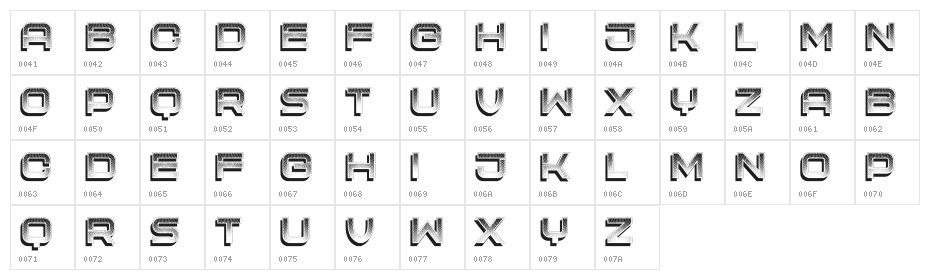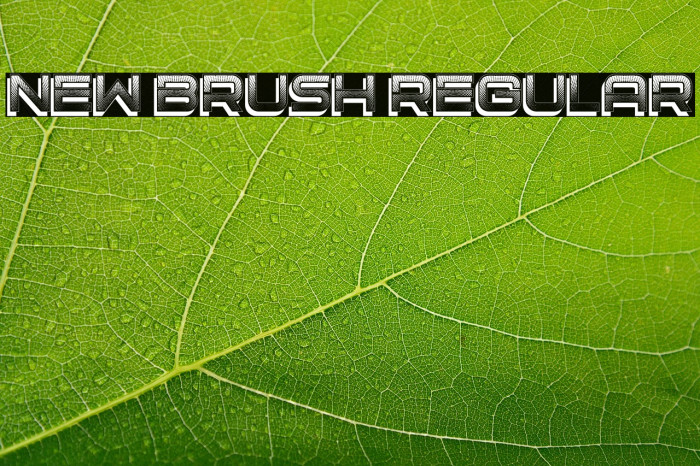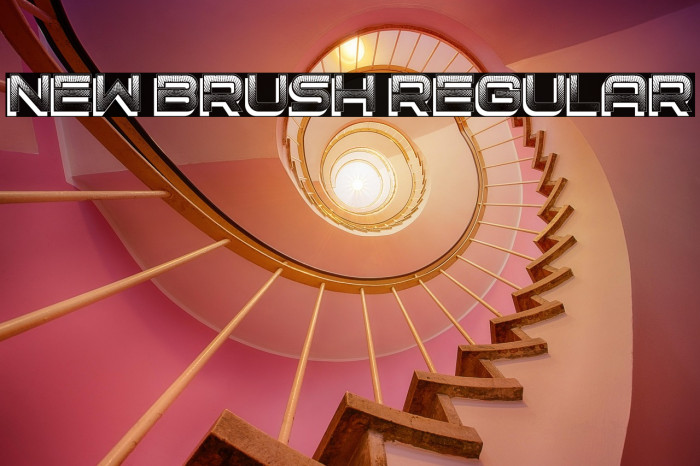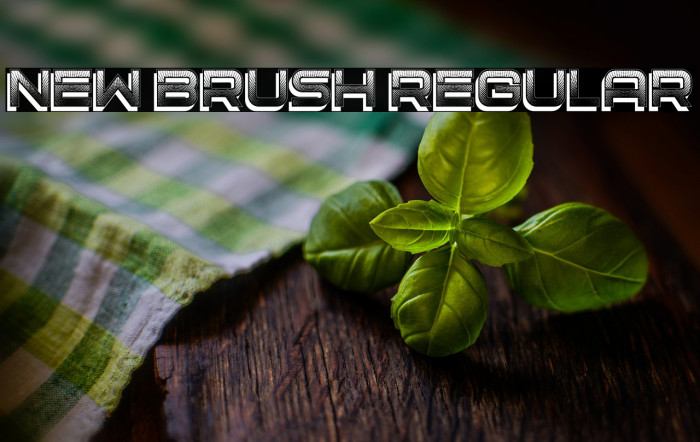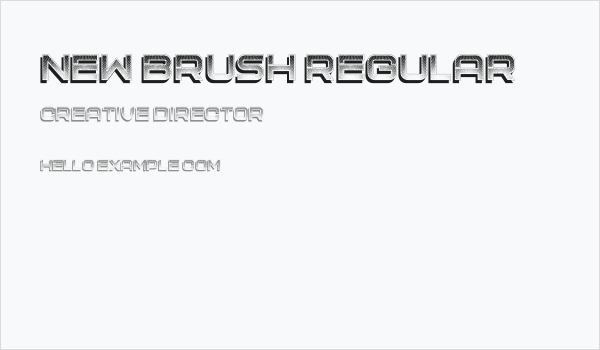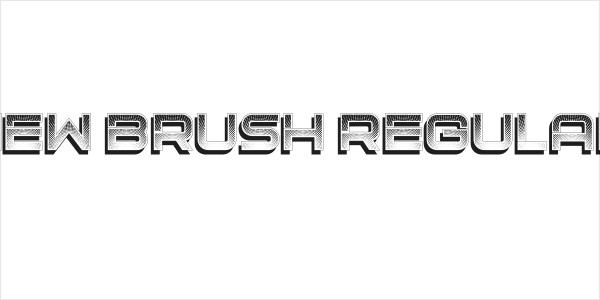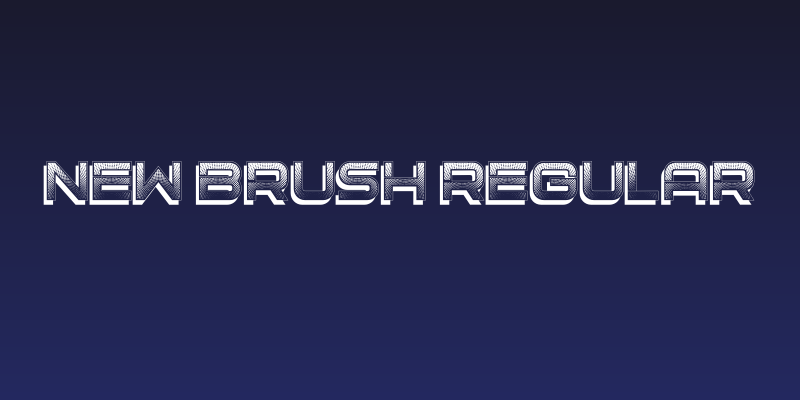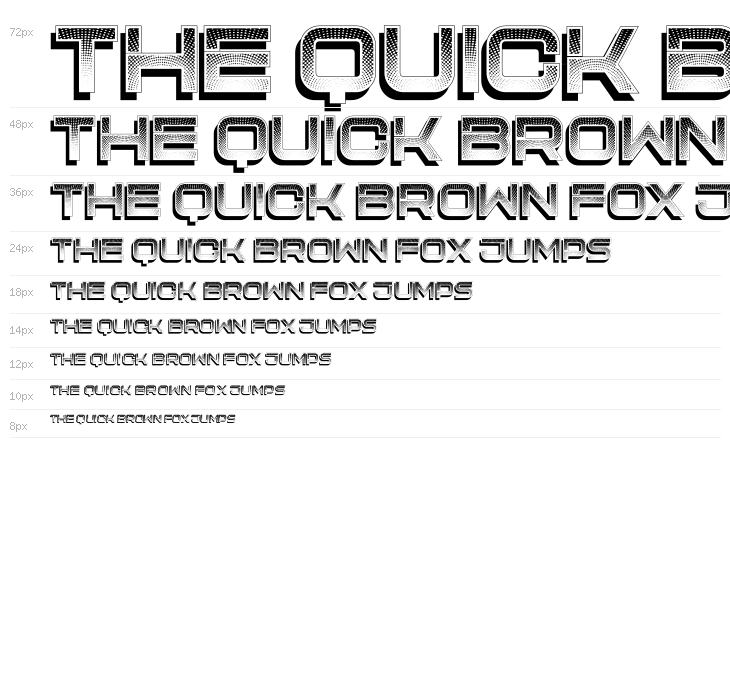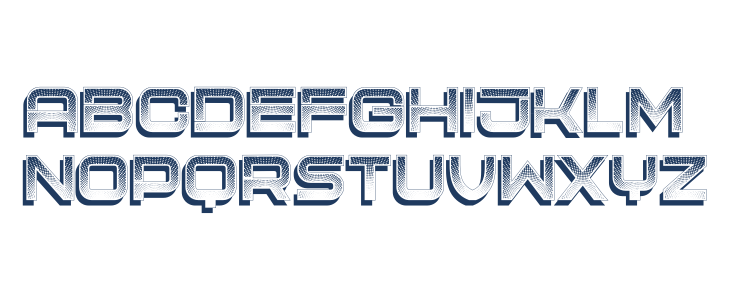
New Brush Regular Font
New Brush Regular Description
This font features a bold and decorative style with a unique pattern filling each character. The letters are uppercase and have a geometric, block-like structure with sharp angles and clean lines. The interior pattern adds a textured, almost industrial feel, making it stand out. The font's design is consistent across all characters, maintaining a uniform appearance. Its boldness and intricate detailing make it suitable for eye-catching designs.
| Overall Style | Modern, Industrial |
| Proposed Projects | Ideal for poster designs, branding projects, and any creative work requiring a striking, industrial look. |